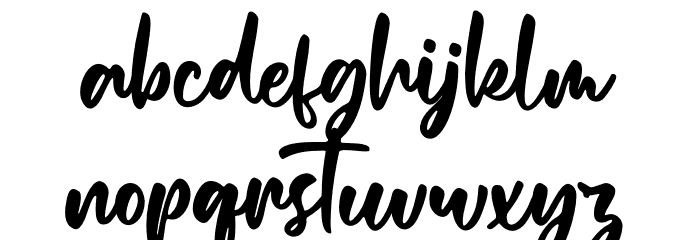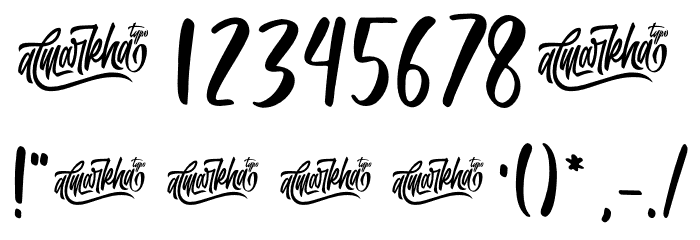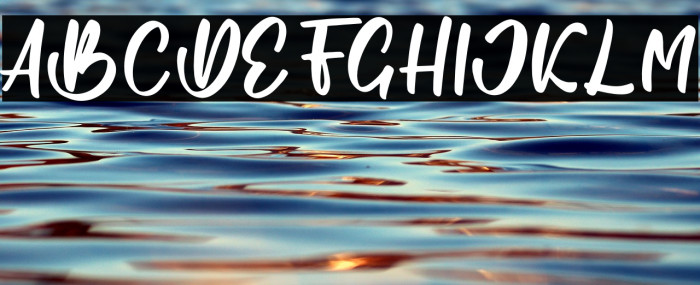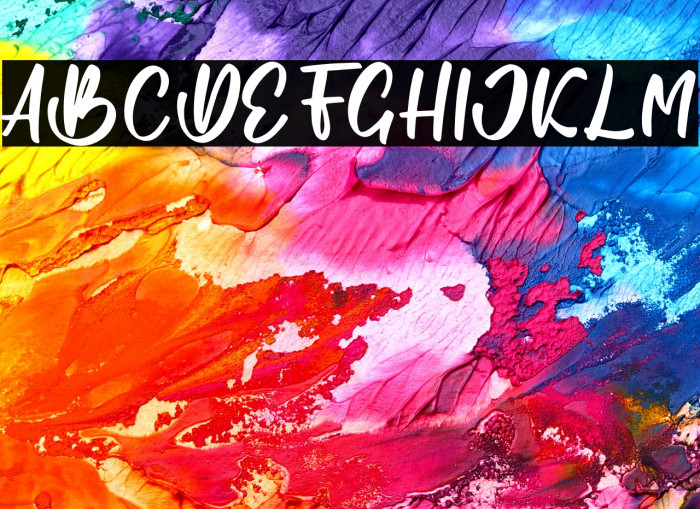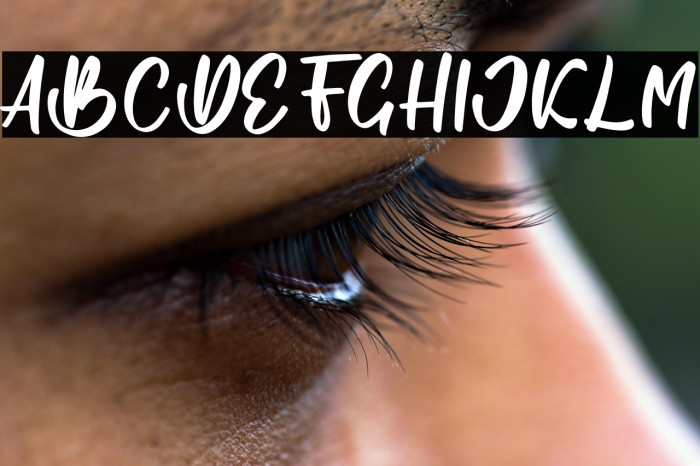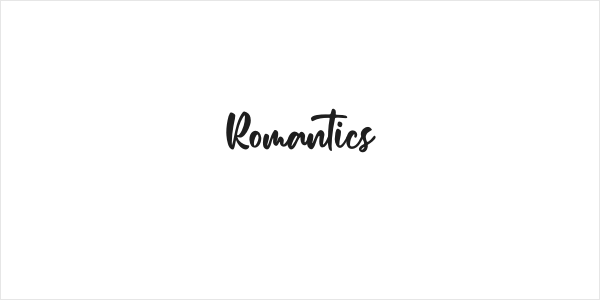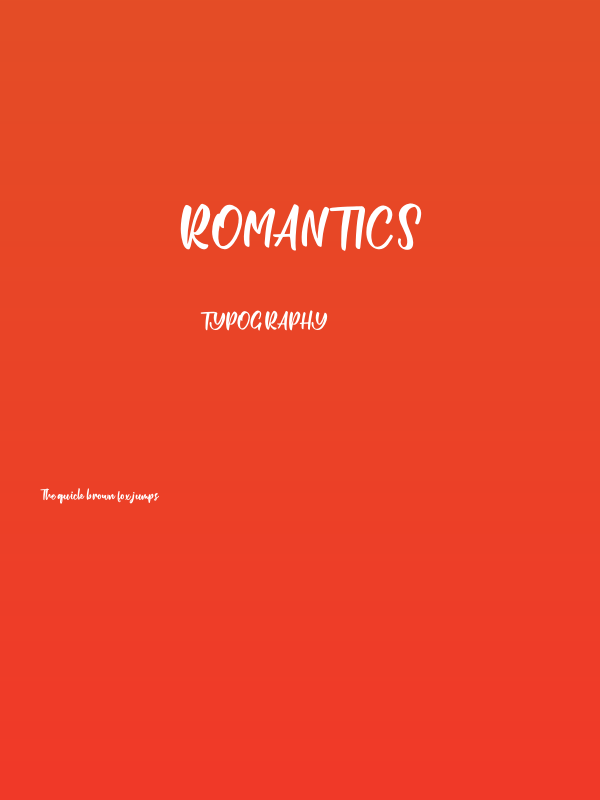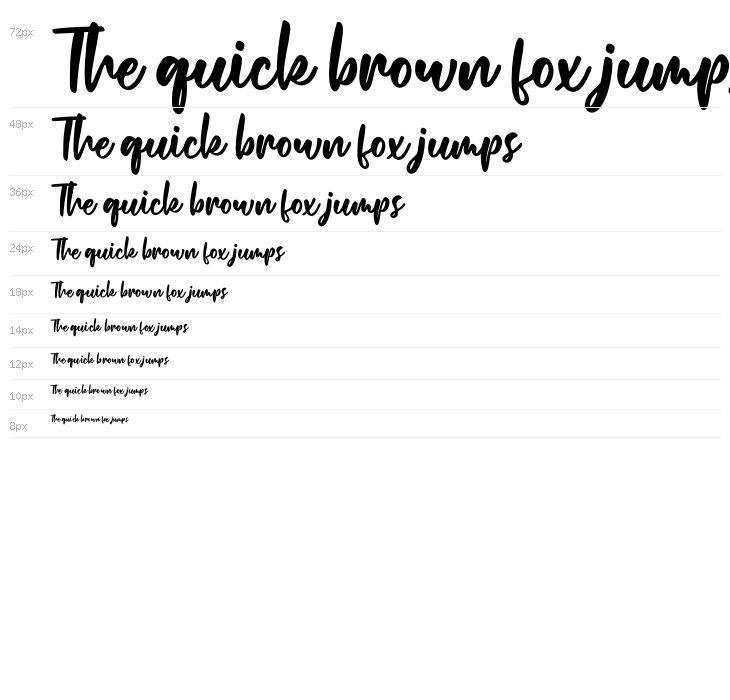
Romantics Font
This font features a bold and expressive script style, characterized by its fluid and dynamic strokes. The uppercase letters exhibit a playful yet elegant flair, with varying stroke widths that add a sense of movement and energy. The lowercase letters maintain a cohesive flow, enhancing readability while retaining the artistic touch. Numerals are consistent with the overall style, offering a bold presence. Special characters are designed with the same attention to detail, ensuring they blend seamlessly with the rest of the font. This font is ideal for projects that require a personal and artistic touch, such as invitations, branding, and creative designs.
A bold and expressive script font with fluid, dynamic strokes.
- Font: Romantics
- Proposed Projects: Ideal for invitations, branding, and creative designs requiring a personal touch.
- Category: Script
- Use Case: Logos, Headlines, Creative designs